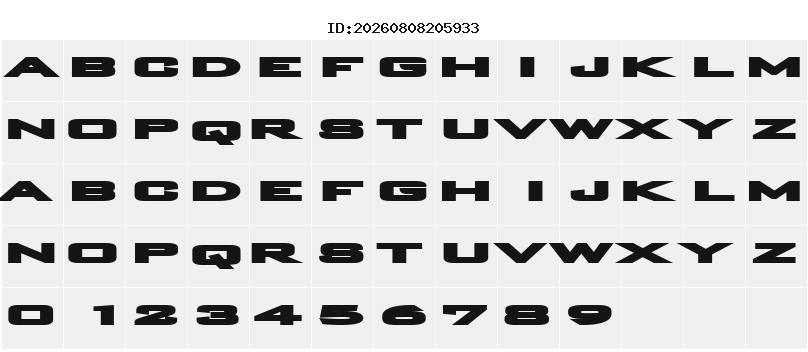
• Font Name: Plain o matic
• Font ID: Bank Gothic Medium, Square 021
• Full Font Name: Plain o matic
• PostScript Name: Plainomatic
About Plain o matic.ttf
Plain o matic.ttf is a modern, elegant sans-serif font designed for ultimate readability and visual harmony. Perfect for branding, headlines, web design, and print materials.